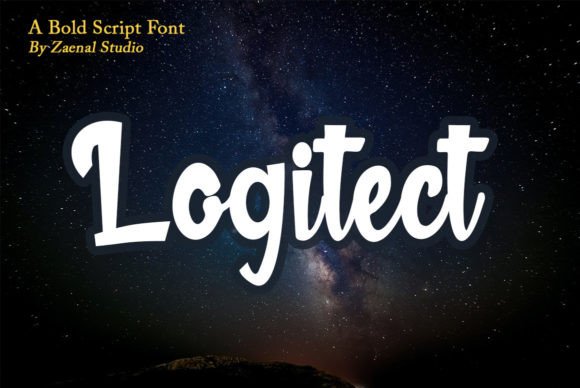
Behold the untamed spirit of the Wild West! Logitect Font, a captivating script font crafted by the ingenious Zaenal Studio, is your golden ticket to creating designs that evoke the raw and untamed beauty of the frontier. Step into a world where every letter dances with a unique and captivating flair, bringing your creative visions to life with an unparalleled charm.
Unleash your inner cowboy and let Logitect Font guide you through the vast expanse of design possibilities. This font isn't just a collection of characters; it's a gateway to an era where dreams run wild and freedom reigns supreme. Whether you're a seasoned designer or a passionate creative seeking a touch of the extraordinary, Logitect Font is your trusty steed, ready to carry you to new heights of visual expression.
Picture this: a saloon's swinging doors creak open, revealing a room bustling with laughter and anticipation. The walls are adorned with posters emblazoned with Logitect's bold and charismatic strokes, drawing the eye to the heart of the action. With Logitect as your secret weapon, you can create designs that command attention and leave an indelible mark on your audience.
Dive into the rich tapestry of possibilities that Logitect Font offers. Its elegant curves and intricate details are a testament to the boundless creativity that lies within. Let your imagination run wild as you craft logos that exude an air of authenticity and timeless appeal. Brand your products with a touch of Western charm that resonates with customers, leaving them yearning for the untamed spirit that Logitect embodies.
But Logitect's magic doesn't stop at logos. It's the perfect font for creating captivating and shareable quotes that ignite the imagination and touch the hearts of your audience. Its unique and beautiful touch is a visual symphony, transforming ordinary words into poignant expressions that linger in the memory.